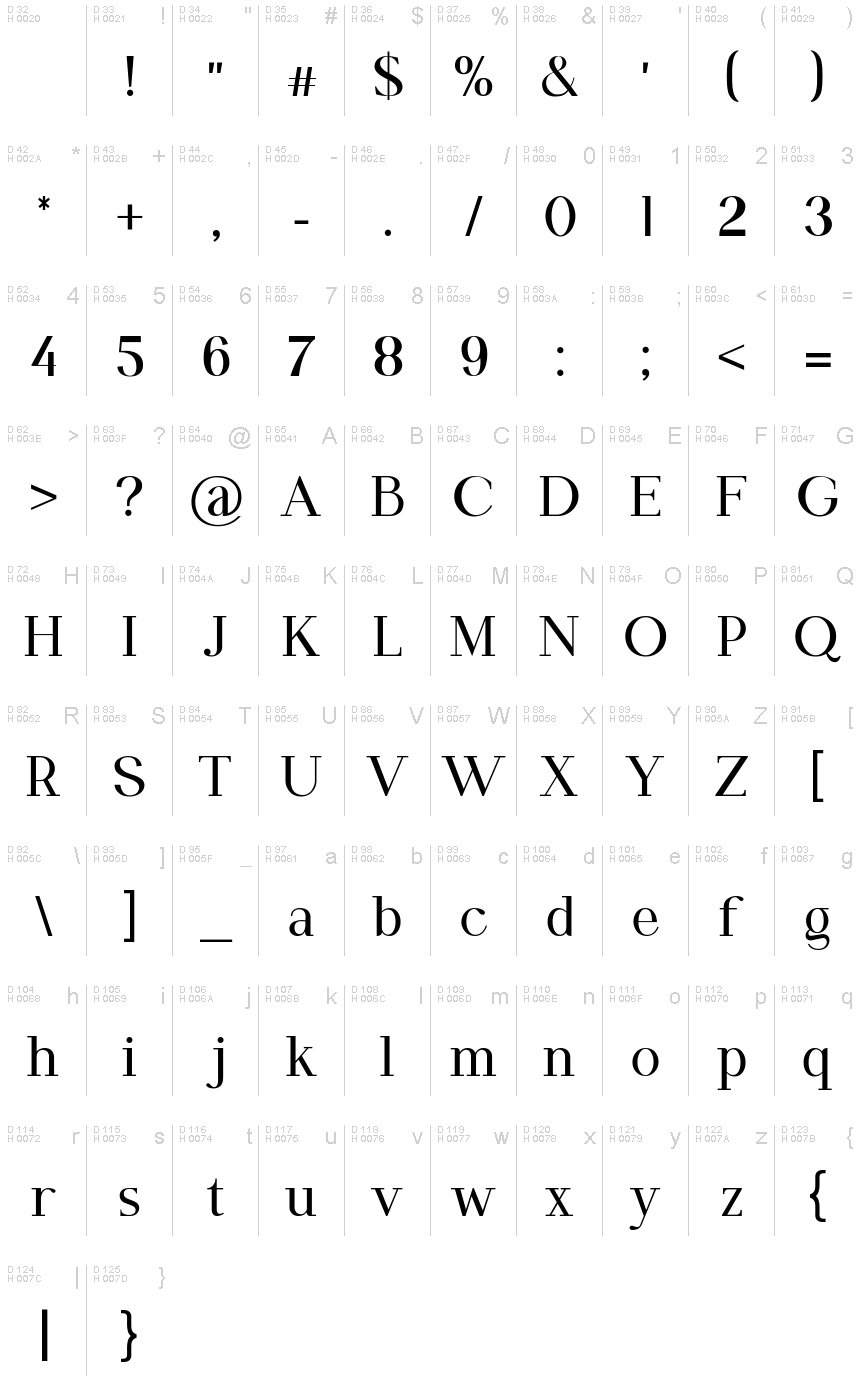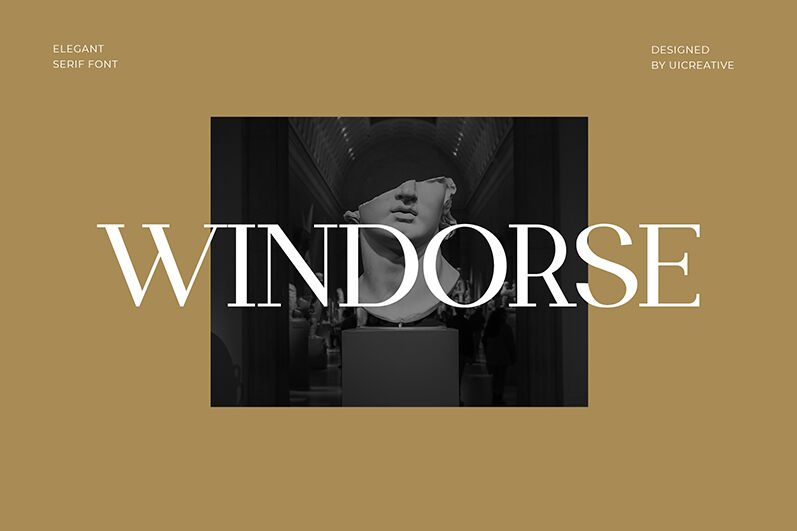
WINDORSE
Windorse by UI Creative is a captivating serif font that exudes elegance and sophistication. Its graceful curves and refined strokes create a timeless aesthetic, evoking a sense of traditional craftsmanship. The font's intricate details and balanced proportions lend a touch of refinement to any design, making it a versatile choice for a wide range of projects.
This font's versatility extends across various design applications, from high-end editorial layouts to impactful branding initiatives. Its classic yet contemporary feel makes it an ideal selection for projects seeking a harmonious blend of tradition and modernity, such as luxury product packaging, formal event invitations, or sophisticated website designs. Windorse by UI Creative seamlessly bridges the gap between timeless appeal and modern sensibilities, offering designers a powerful tool to elevate their creative endeavors.